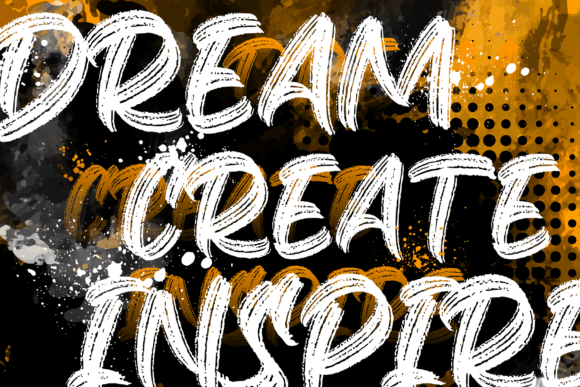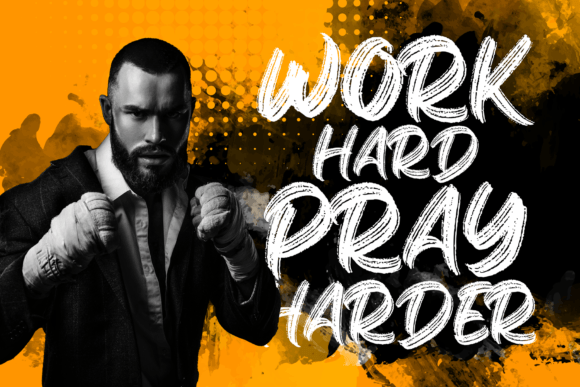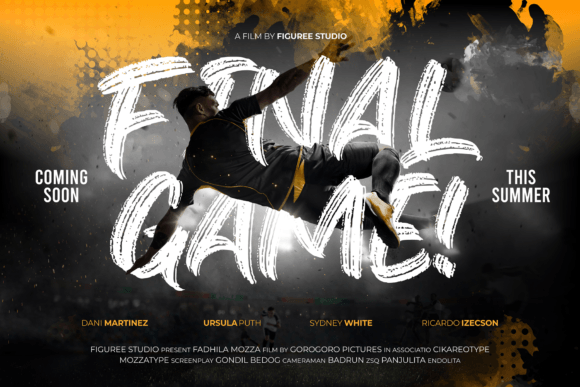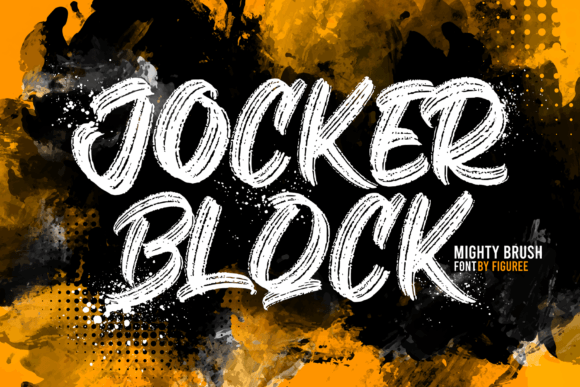
Introduction to Jocker Block Font
Jocker Block is natural and strong hand-drawn brush font that combines attractive curves with a fresh urban edge; delivering a stylish brush font that is guaranteed to add an eye-catching appeal to your logo designs, brand imagery, handwritten quotes, product packaging, merchandise, social media post, or website.
Key Features of Jocker Block Font
Why Choose Jocker Block Font?
Jocker Block Font offers exceptional quality and versatility, making it a valuable addition to your design toolkit. Whether you’re creating for personal projects or commercial use, Jocker Block Font delivers professional results.